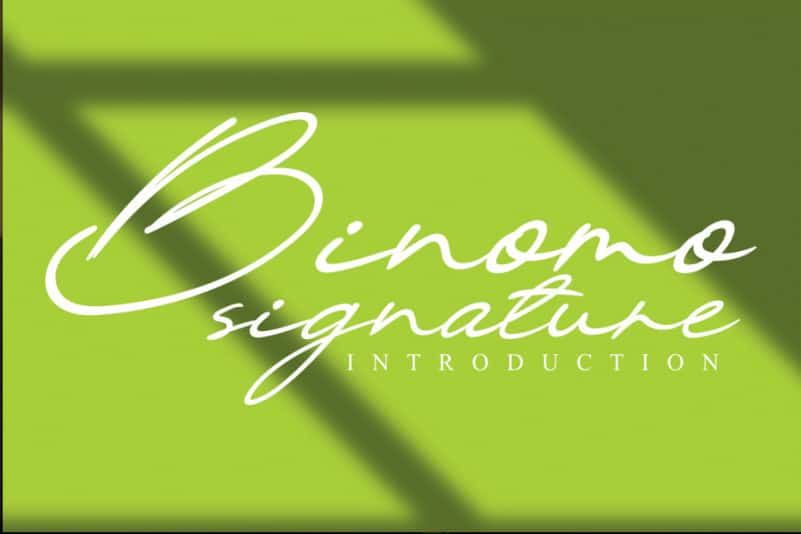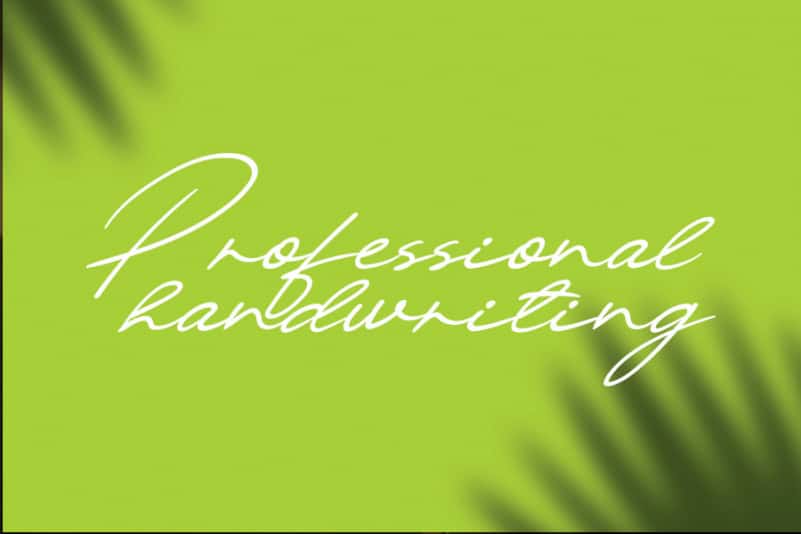
Binomo Handwritten Font
Binomo Handwritten Font is inspired by classic typography and brings its own unique style to any design project. It maintains its classy calligraphic influences while feeling contemporary and fresh. This versatility will appeal to a wide range of crafty ideas, from letterheads and titles, to stationery.
The latest style letters are perfect for wall displays, wedding invitations, social media post logos, advertisements, product packaging, product designs, labels, photography, watermarks, invitations, stationery, and any project that requires taste handwriting.